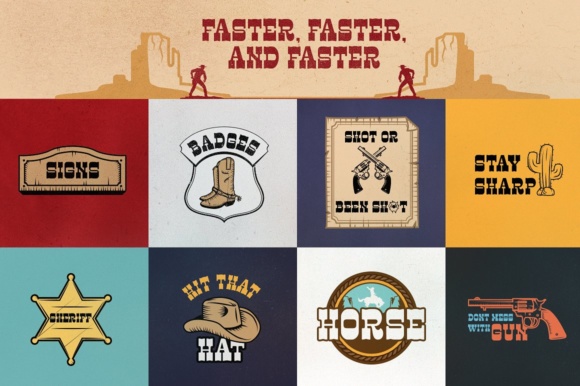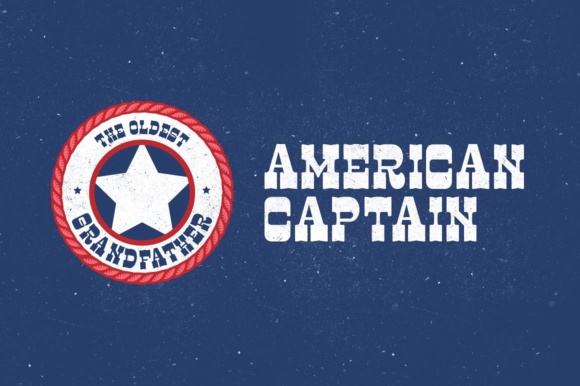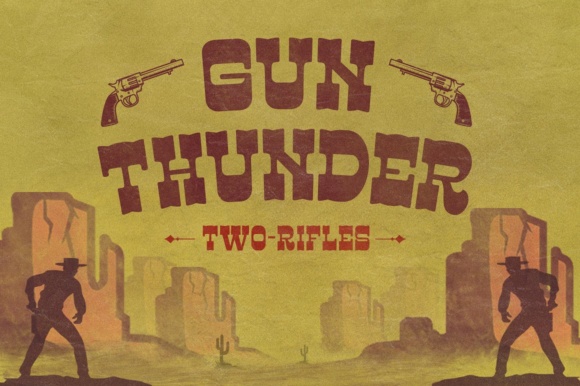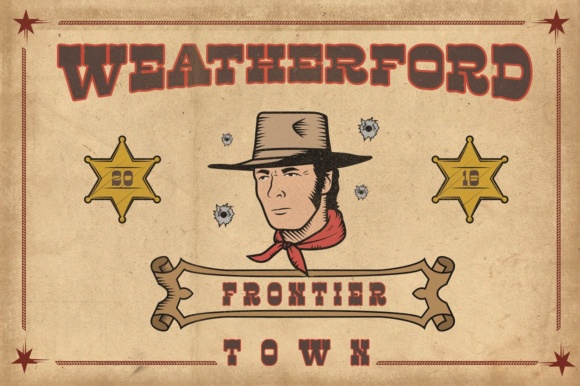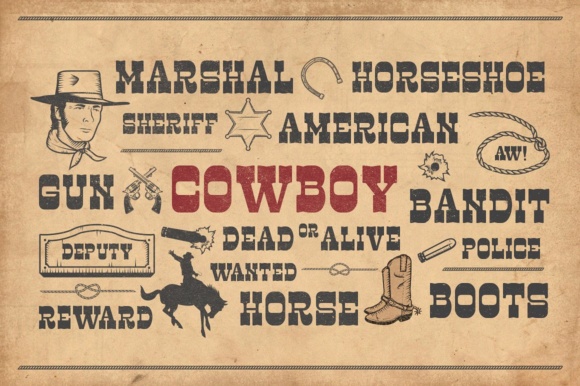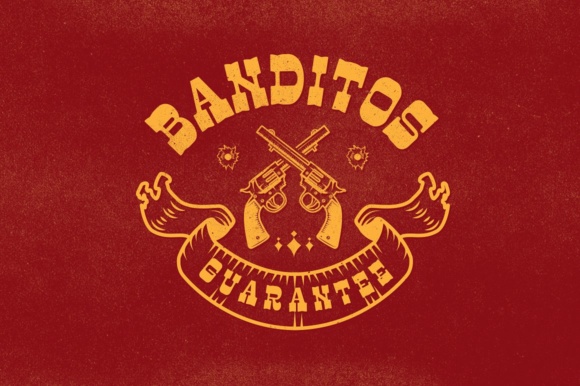
Dafodil Font: A Bold and Beautiful New Wave Font Inspired by Cowboy Styles
Are you a designer or crafter looking for a font that exudes a sense of ruggedness and sophistication? Look no further than the Dafodil Font, a stunning new wave font inspired by the wild west. With its strong, bold, and warm appeal, this font is perfect for projects that require a touch of cowboy charm.
What is Dafodil Font?
Dafodil Font is a unique and stylish font that draws inspiration from traditional cowboy styles. Its western elements are evident in its bold lines, rugged texture, and warm, inviting tone. Whether you’re working on a logo, poster, or packaging design, this font is sure to add a touch of rugged sophistication to your project.
Key Features of Dafodil Font
- Strong and Bold: Dafodil Font features strong, bold lines that give it a rugged and confident look.
- Western Elements: The font’s western elements are evident in its rustic texture and classic cowboy-inspired design.
- Warm and Inviting: The warm tone of Dafodil Font makes it perfect for designs that require a friendly and approachable feel.
Who is Dafodil Font for?
Dafodil Font is perfect for designers and crafters who work on projects that require a touch of western charm. This includes:
- Logos and Branding: Use Dafodil Font to create a bold and memorable logo that stands out from the crowd.
- Posters and Flyers: Add a touch of cowboy style to your posters and flyers with this rugged and eye-catching font.
- Packaging Design: Use Dafodil Font to add a touch of rustic sophistication to your packaging design.
- Crafting and Scrapbooking: This font is also perfect for crafters and scrapbookers who want to add a touch of western charm to their projects.
Tips for Using Dafodil Font
Here are a few tips for getting the most out of Dafodil Font:
- Use it as a Headline Font: Dafodil Font is perfect for headlines and titles, where its bold and rugged texture can really make an impact.
- Pair it with a Script Font: For a more dynamic look, try pairing Dafodil Font with a script font to create a bold and elegant contrast.
- Experiment with Colors: Dafodil Font looks great in a range of colors, from earthy tones to bold brights. Experiment with different colors to find the perfect look for your project.